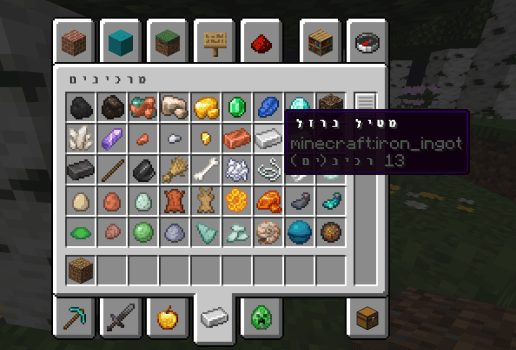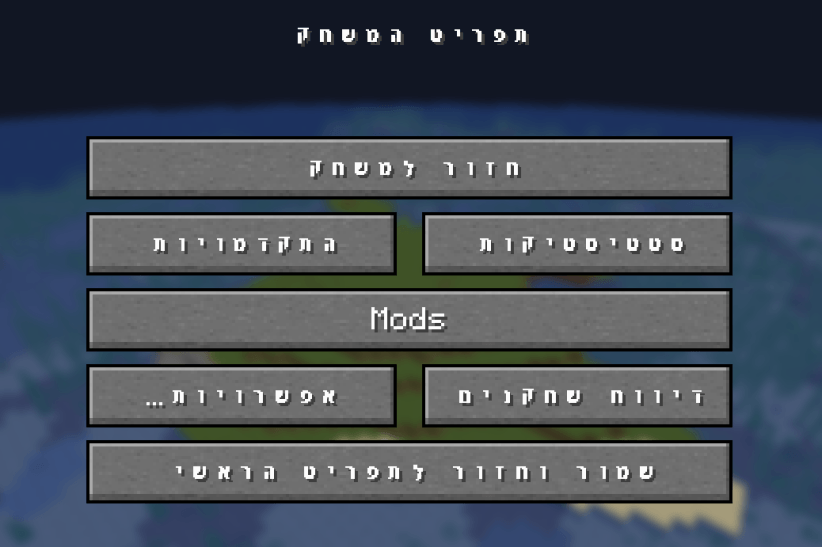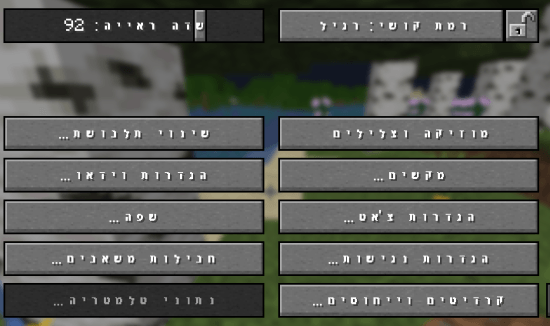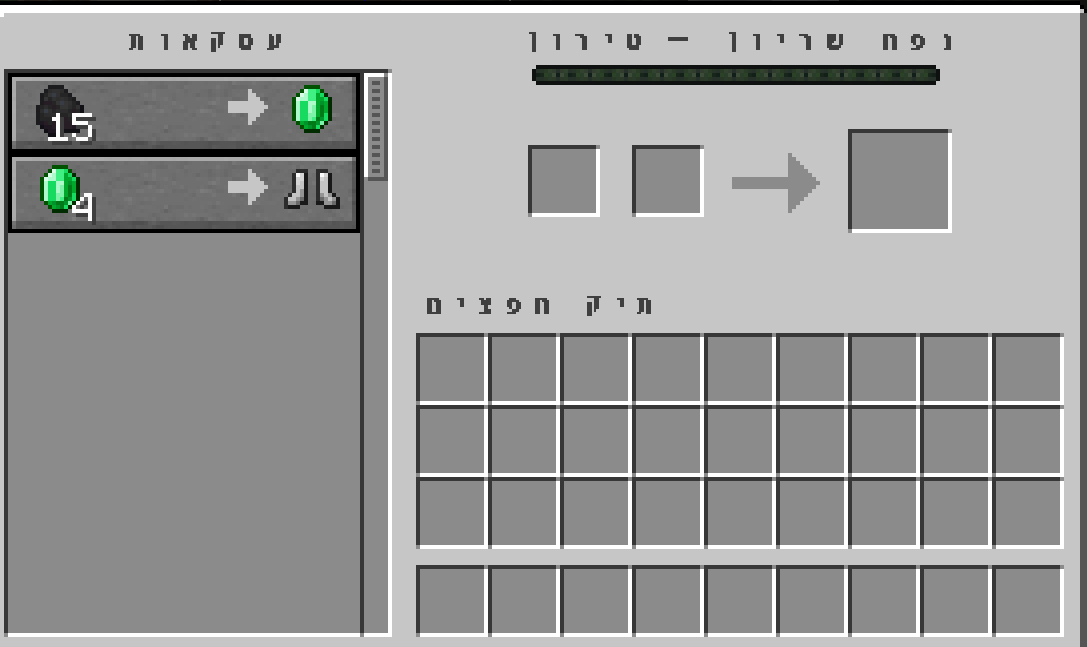
Better Hebrew Font makes Hebrew text in Minecraft actually readable no more boxes, blurry letters, or weird spacing. All other text stays completely normal.